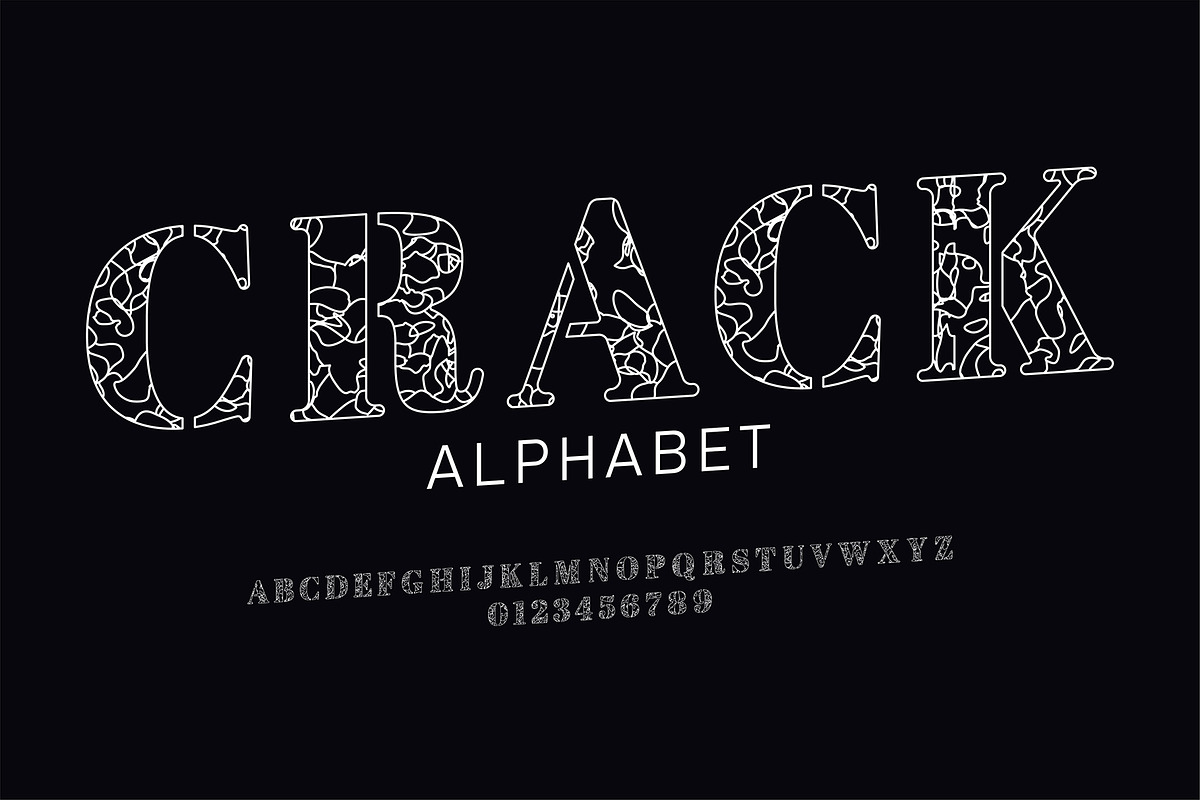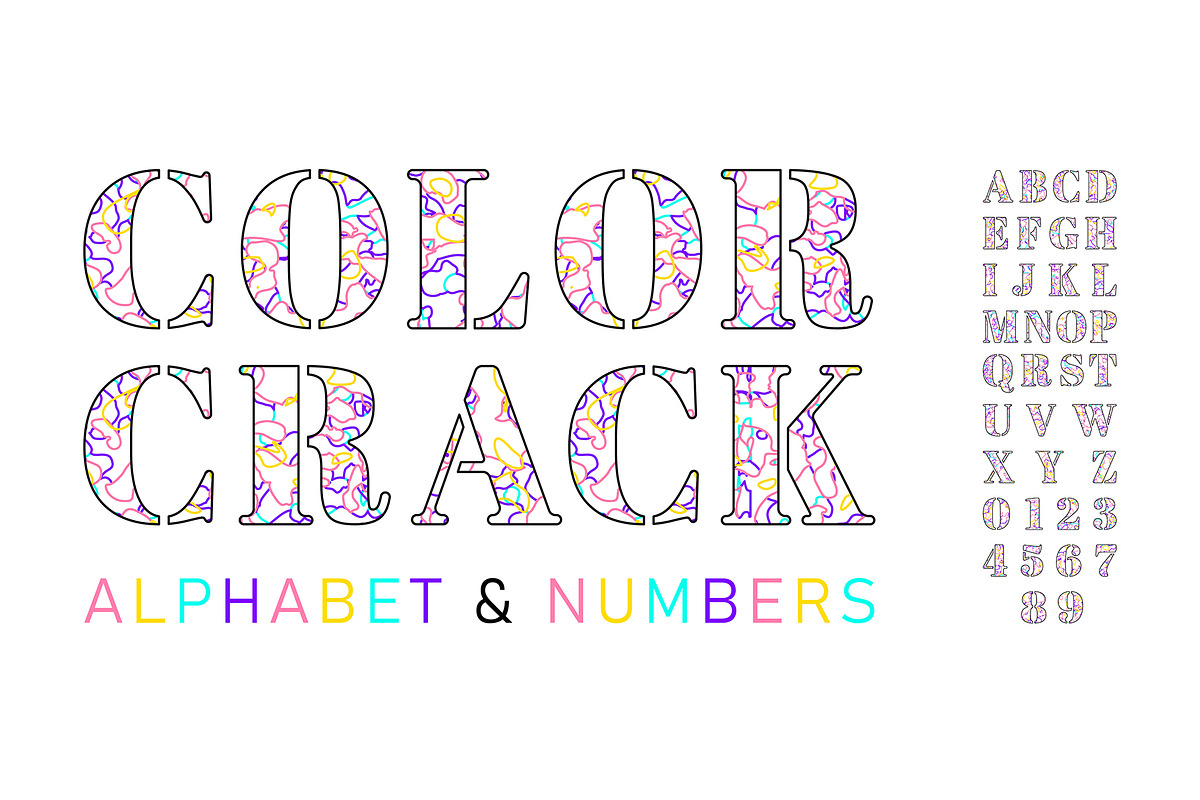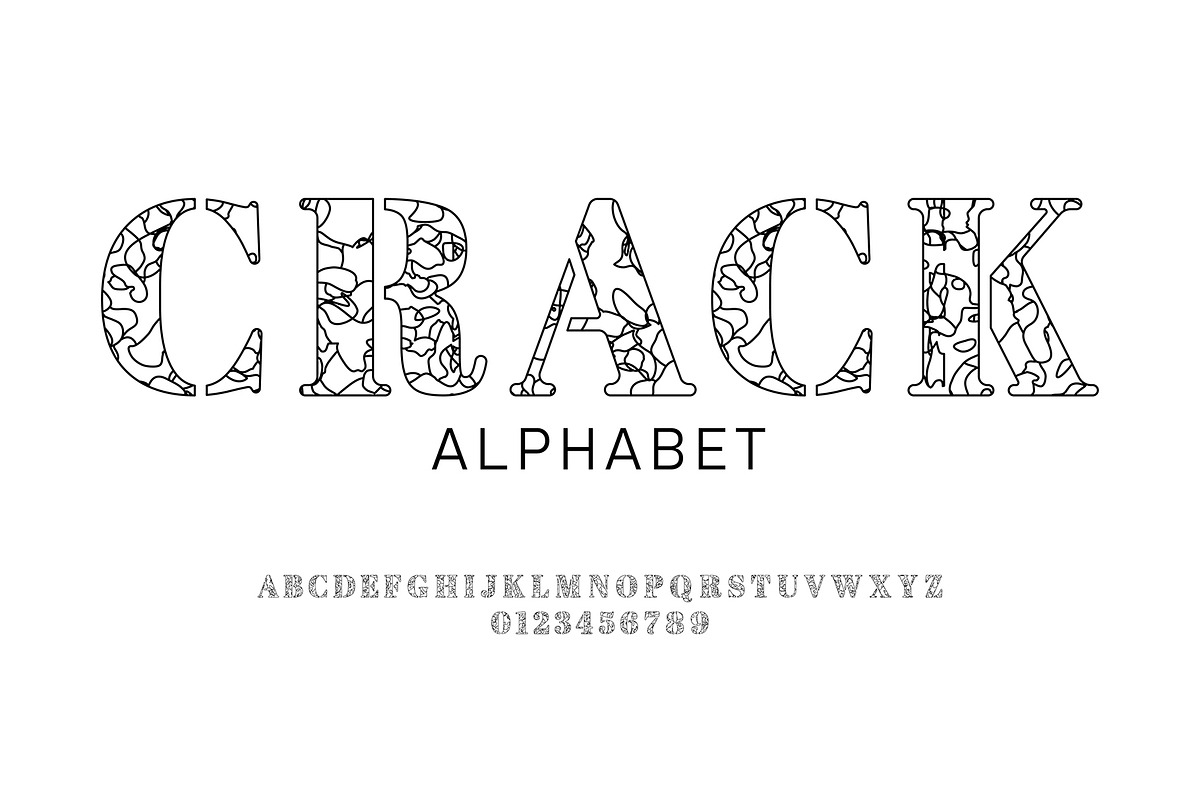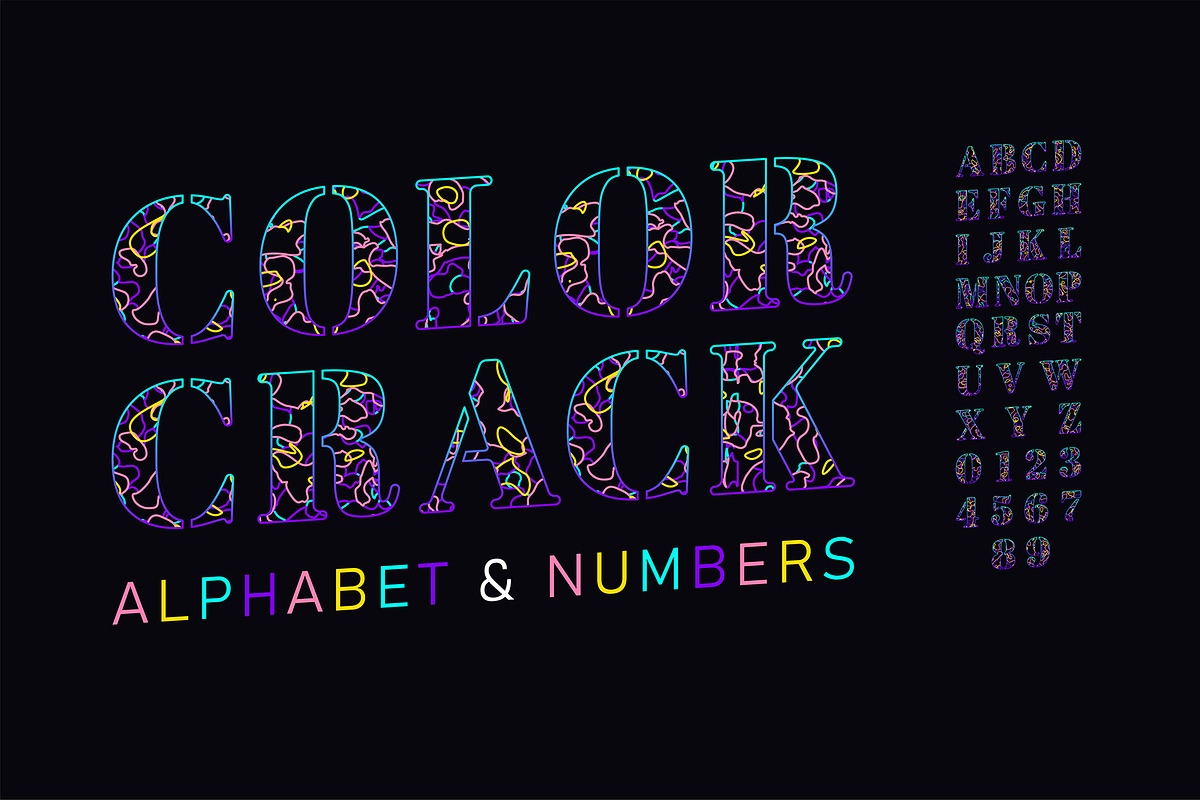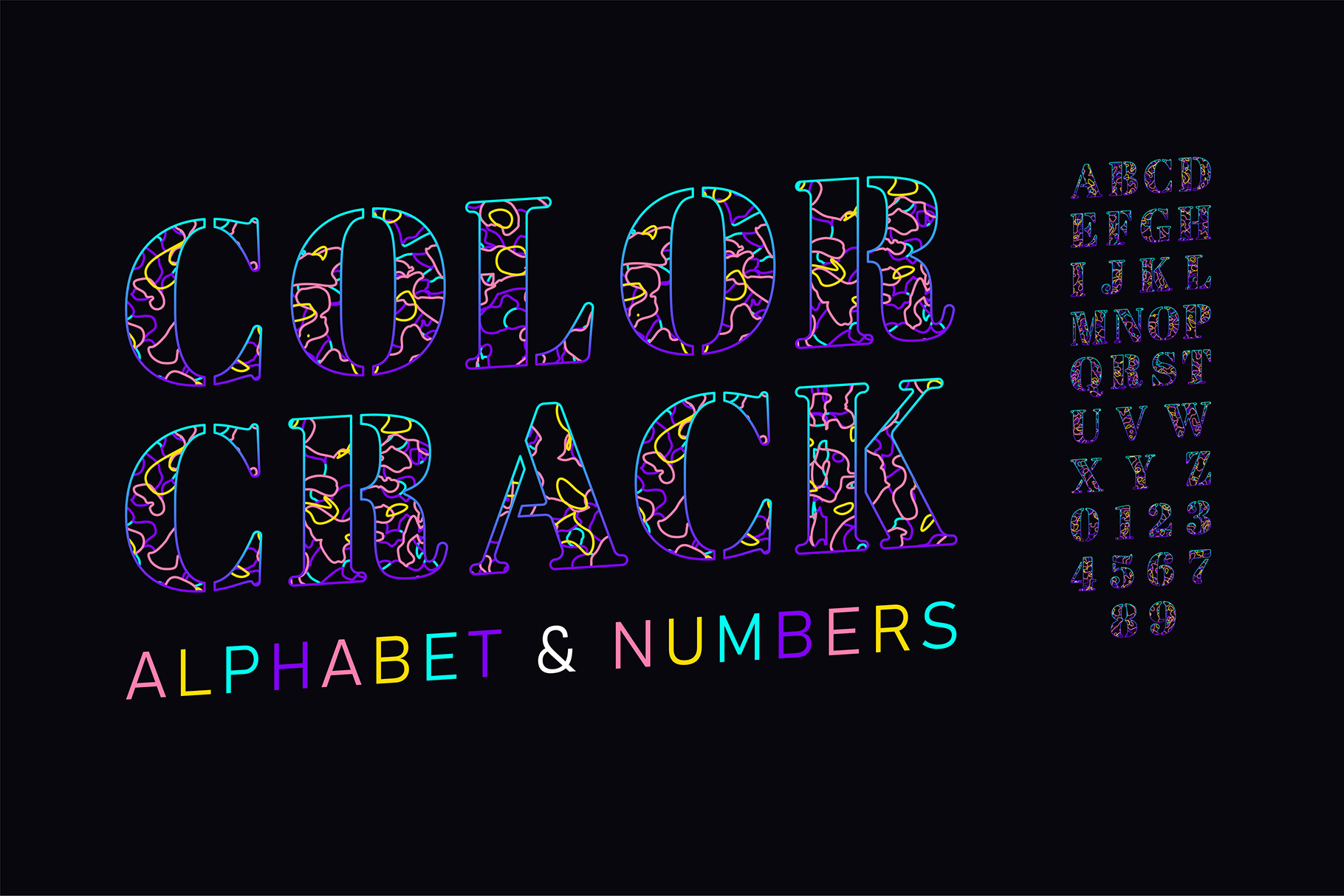
Cracked Colorful Font Set
Colorful Cracked Alphabet with Mosaic Texture. Decorative Broken Typeface with Bright Fragments and Outline Style - EPS (Not a Font!)
- Uppercase letters A - Z (italics and normal)
- Numbers 0 - 9 (italics and normal)
- Clean, modern, and unique alphabet design